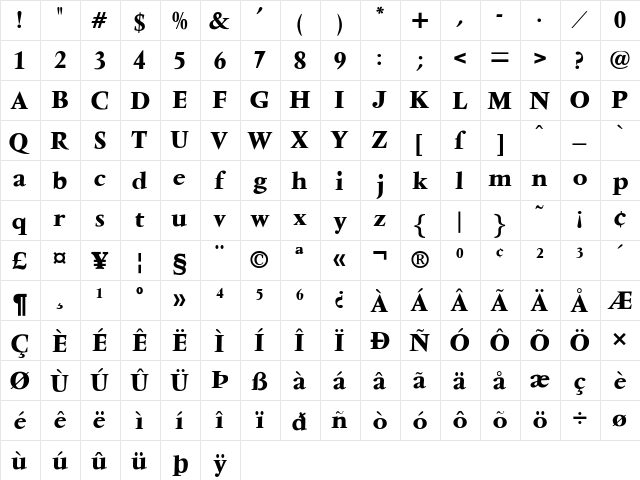
Ventura-Bold Regular
Design Context for Ventura-Bold Typeface
Ventura-Bold offers clean, dependable letterforms without strong stylistic allegiance, making it a practical choice for designers who need flexibility. The heavy weight commands attention and anchors typographic hierarchies.